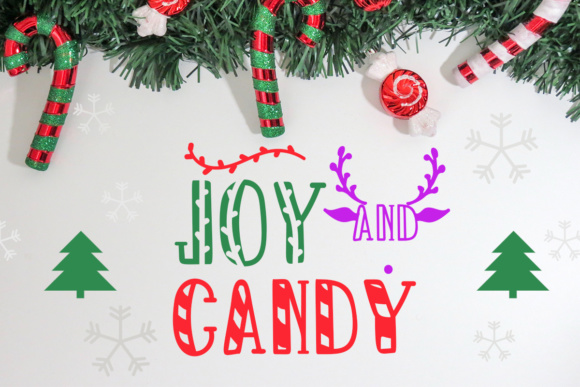
Joy and Candy Font: A Wonderful Christmas-Themed Font for Your Festive Projects
Are you looking for a festive and fun font to add some holiday cheer to your Christmas projects? Look no further than the Joy and Candy font! This wonderful Christmas-themed font is perfect for creating holiday cards, decorations, and other festive materials. In this article, we’ll take a closer look at the Joy and Candy font, its features, and how you can use it to add some joy and candy to your holiday projects.
What is Joy and Candy Font?
Joy and Candy is a Christmas-themed font that comes with three unique fonts, each with its own special features. The font is designed to bring a playful and festive touch to your holiday projects, and it’s perfect for anyone looking to add some holiday cheer to their designs.
The Three Unique Fonts of Joy and Candy
The Joy and Candy font comes with three unique fonts that can be used to create a variety of festive and fun designs. The three fonts are:
- Joy and Candy Regular: This font features playful outline lowercase letters and delicious candy cane uppercase letters. It’s perfect for creating holiday cards, decorations, and other festive materials.
- Joy and Candy Xmas Lights: This font features gorgeous filled lowercase letters and fun, playful Christmas lights inspired uppercase letters. It’s perfect for creating festive and fun designs that are sure to bring a smile to anyone’s face.
- Joy and Candy Extra: This font is filled with Christmas-themed bonus ornaments that can be used to add some extra festivity to your designs. It’s perfect for creating holiday decorations, cards, and other festive materials.
Features of Joy and Candy Font
The Joy and Candy font has a range of features that make it perfect for creating festive and fun holiday designs. Some of the key features of the font include:
- Playful and festive design: The Joy and Candy font has a playful and festive design that’s perfect for creating holiday cards, decorations, and other festive materials.
- Three unique fonts: The font comes with three unique fonts, each with its own special features.
- Christmas-themed ornaments: The font includes Christmas-themed ornaments that can be used to add some extra festivity to your designs.
Tips for Using Joy and Candy Font
Here are a few tips for using the Joy and Candy font:
- Use it for holiday projects: The Joy and Candy font is perfect for creating holiday cards, decorations, and other festive materials.
- Experiment with different fonts: The font comes with three unique fonts, so don’t be afraid to experiment with different fonts to find the one that works best for your design.
- Add some extra festivity: Use the Christmas-themed ornaments to add some extra festivity to your designs.
The Joy and Candy font is a wonderful Christmas-themed font that’s perfect for creating festive and fun holiday designs. With its three unique fonts and Christmas-themed ornaments, it’s the perfect addition to any holiday project. Whether you’re creating holiday cards, decorations, or other festive materials, the Joy and Candy font is sure to bring some joy and candy to your designs.